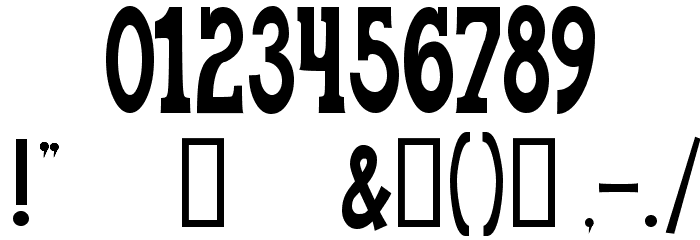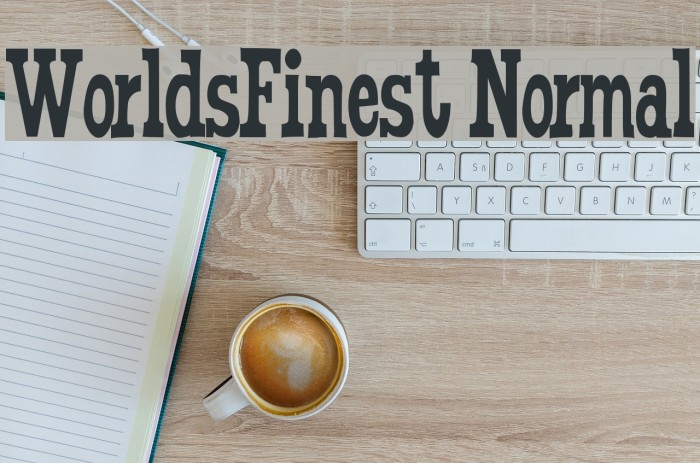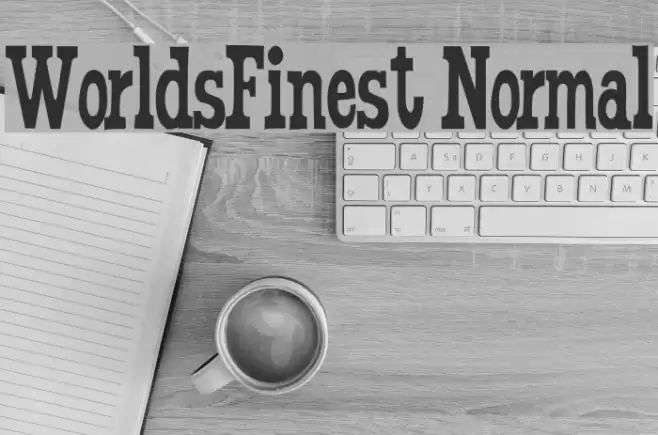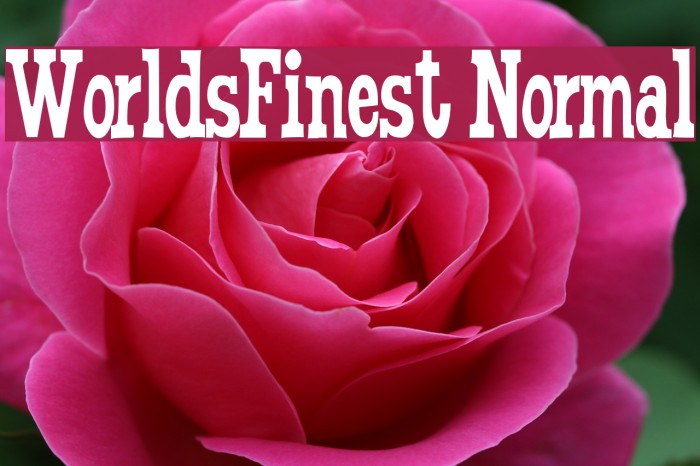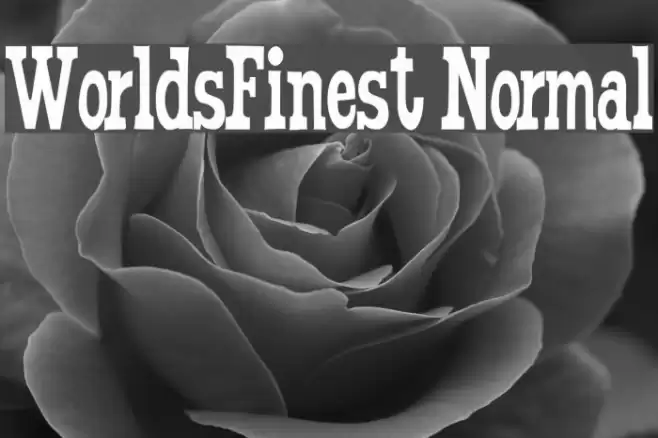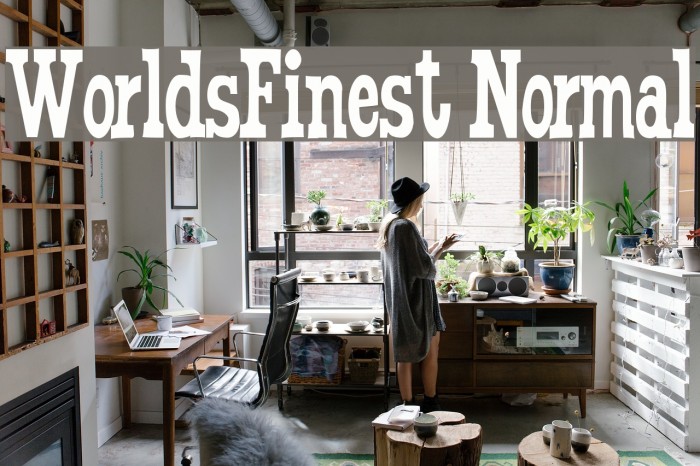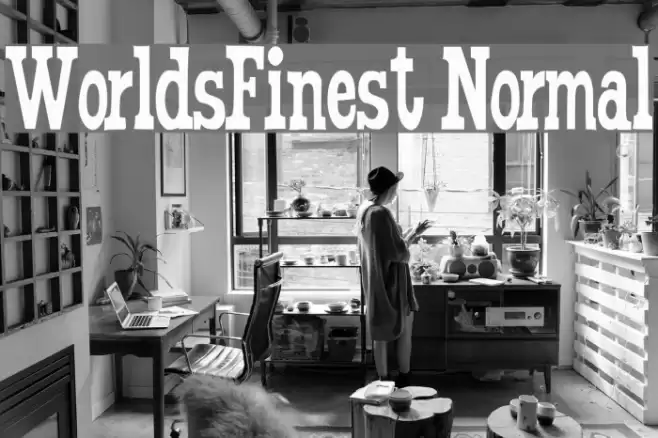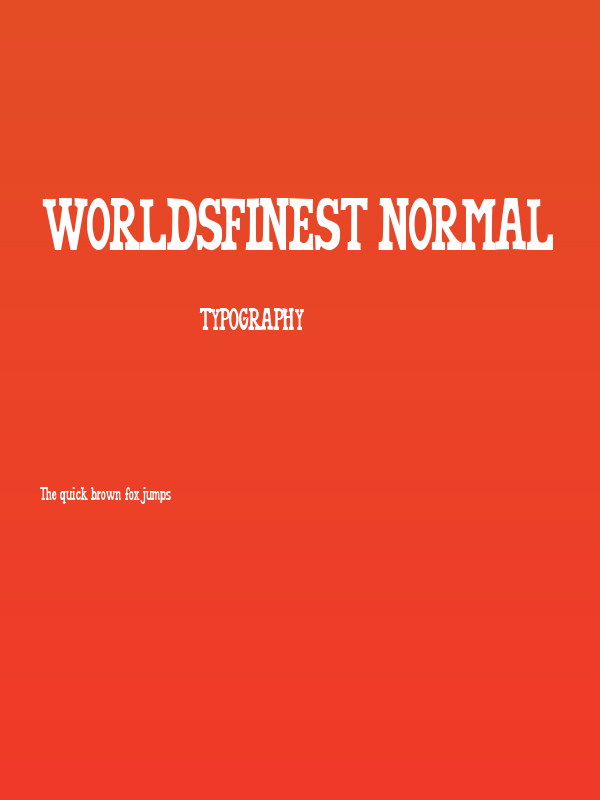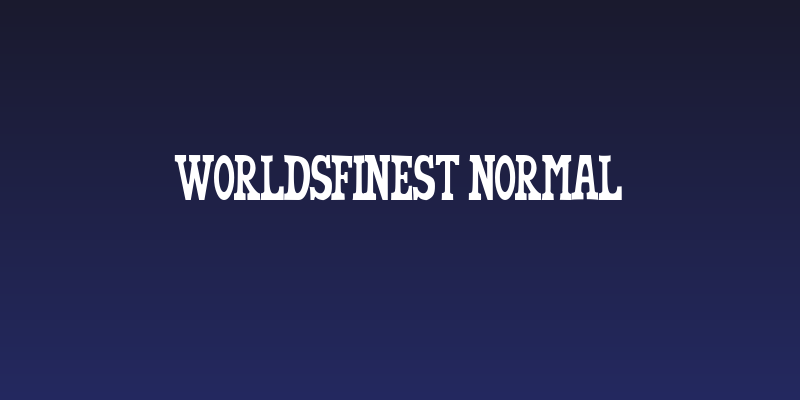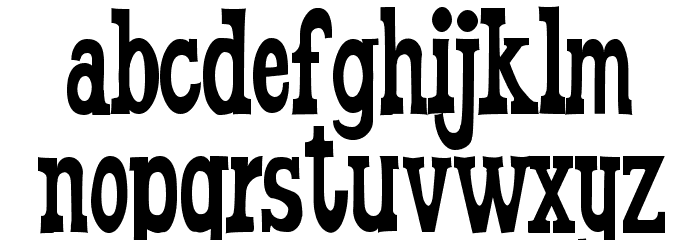
WorldsFinest Normal Font
WorldsFinest Normal Description
This font features a bold and robust design with a distinct slab serif style. The characters are well-defined with thick strokes and prominent serifs, giving it a strong and impactful appearance. The uppercase letters are tall and commanding, while the lowercase letters maintain a consistent weight, providing a harmonious balance. The numerals are clear and easy to read, matching the boldness of the alphabet. Special characters are designed with the same attention to detail, ensuring uniformity across all glyphs. This font's boldness and clarity make it suitable for various design applications where a strong visual presence is required.
Proposed ProjectsIdeal for posters, headlines, branding, and any project requiring a bold, impactful typeface.